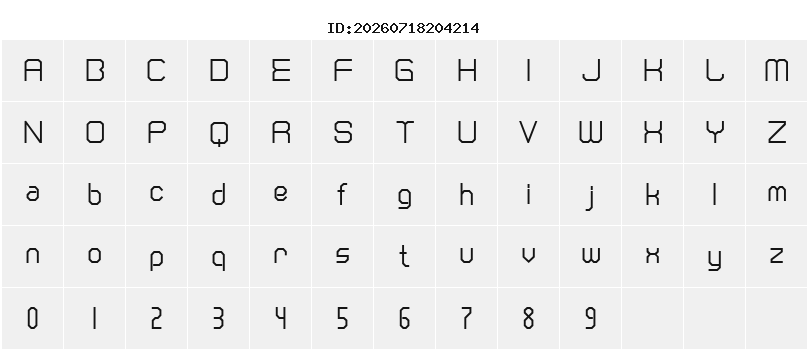
• Font Name: Cranberry Gin
• Full Font Name: Cranberry Gin
About Cranberry Gin.ttf
Cranberry Gin.ttf is a modern, elegant sans-serif font designed for ultimate readability and visual harmony. Perfect for branding, headlines, web design, and print materials.